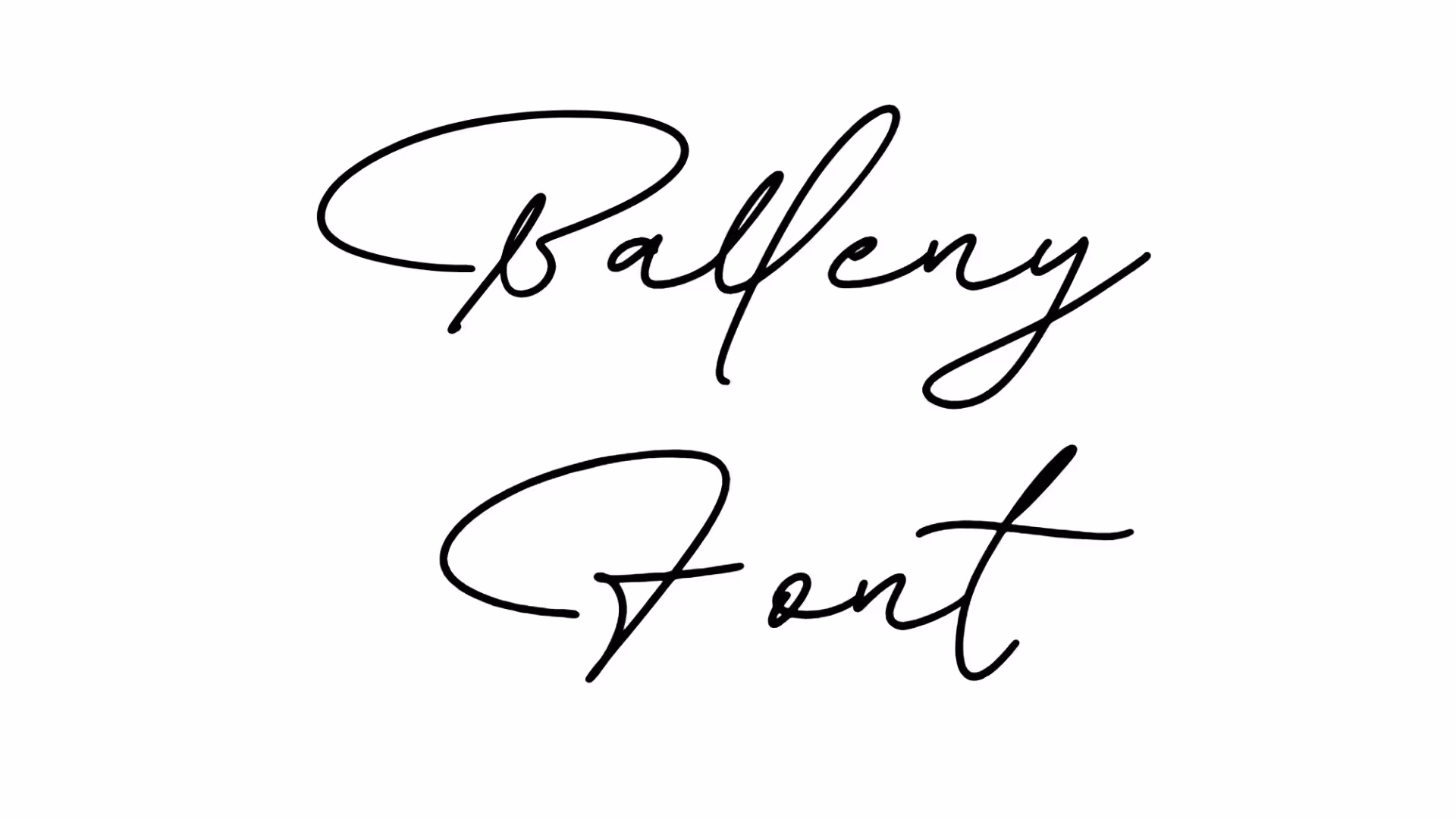
Balleny
Balleny is a handwritten font designed by Glorytype (2021). The letters have the small wobbles and personality of real handwriting, so your text feels warm instead of printed. You can download it for free and test it with your own words in the preview above.
What You Can Type With Balleny
With complete upper and lowercase letters and all ten digits, Balleny is ready for real wording, not just a single headline. Common punctuation such as &, !, ? and @ is included as well. It also has the accented letters you need for Spanish, French, German, Portuguese and Italian.
Where Balleny Works Best
Think of Balleny for greeting cards, journal pages and friendly social posts. Its lowercase letters are small compared to the capitals, so set it a size or two bigger than usual. Set it a bit larger than you would a normal text font. Handwriting styles lose their charm once they get too small to read comfortably.
Does Balleny support accented letters?
Yes. Balleny includes the accented letters needed for Spanish, French, German, Portuguese and Italian, so it works for more than just English.